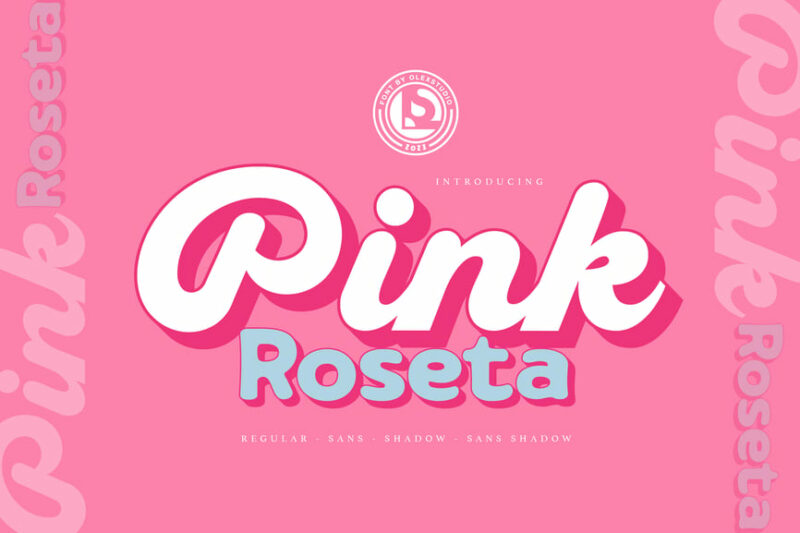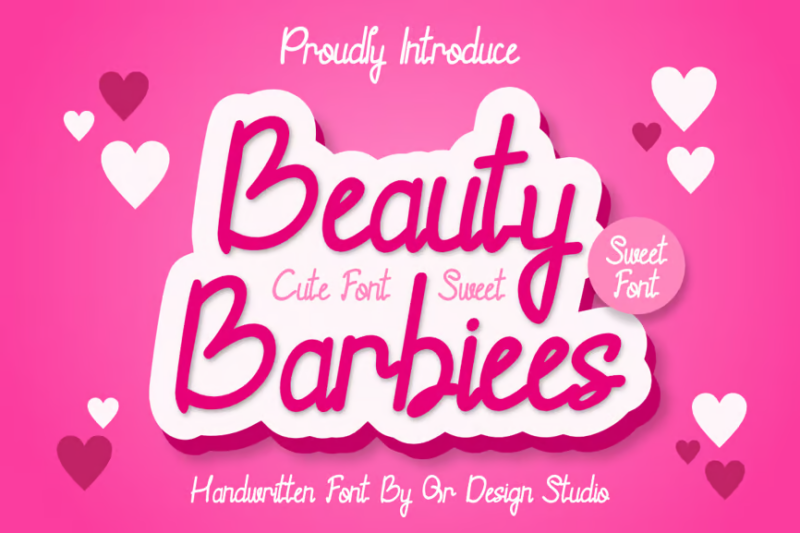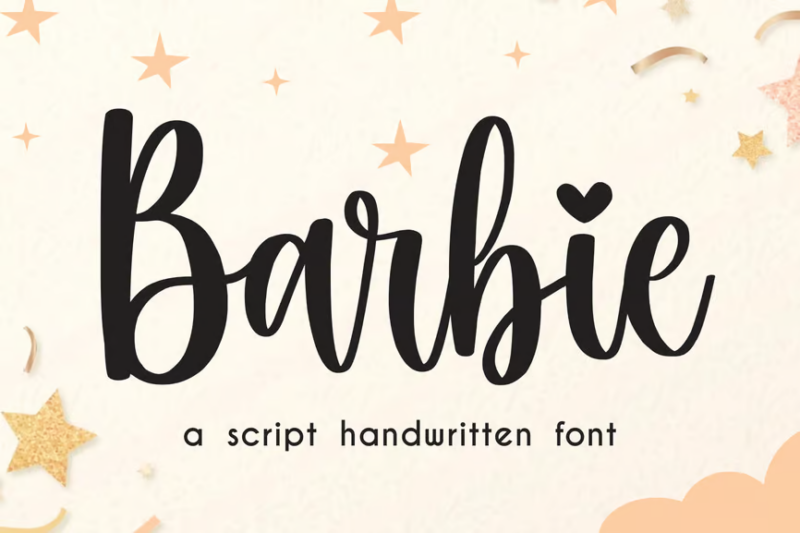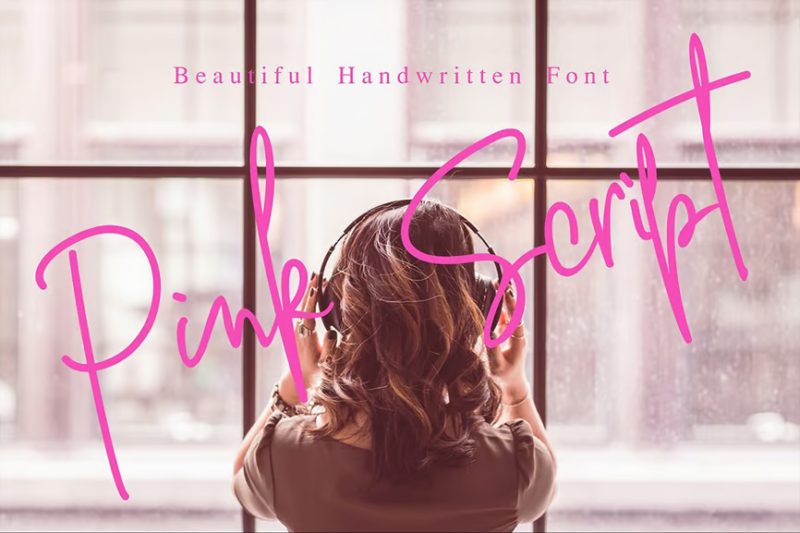
Add a touch of Barbie to your designs with our free Barbie-style font generator! Perfect for creating glamorous text for parties, crafts, and all things pink and fabulous. Our tool features the iconic curvy font style that captures Barbie’s signature blend of fashion and fun.
PINK ROSETA Typeface
PINK ROSETA is a charming script typeface that exudes femininity and elegance. Its flowing curves and delicate ligatures make it perfect for romantic designs, wedding invitations, and feminine branding projects. The typeface offers a beautiful balance between readability and decorative flair.
Beauty Barbiees
Beauty Barbiees is a playful and whimsical script font that captures the essence of beauty and love. Its bouncy baseline and curly embellishments give it a youthful, energetic feel. This font is ideal for cosmetic packaging, fashion blogs, and girly designs that require a touch of fun and glamour.
Barbie – Wedding Font
Barbie – Wedding Font is an elegant script typeface designed specifically for wedding-related materials. Its graceful curves and romantic swashes make it perfect for invitations, save-the-dates, and other nuptial stationery. The font’s refined appearance adds a touch of sophistication to any wedding-themed design.
Quenty – Elegant Script Typeface
Quenty is a beautifully crafted elegant script typeface that combines classic calligraphy with modern flair. Its smooth flowing lines and carefully balanced letterforms make it suitable for high-end branding, luxury product packaging, and sophisticated editorial designs. The font’s versatility allows it to shine in both digital and print media.
Pink Script
Pink Script is a versatile and romantic typeface that’s perfect for Valentine’s Day designs and wedding stationery. Its fluid strokes and gentle curves evoke a sense of love and tenderness. This font is ideal for creating heartfelt greeting cards, love-themed social media posts, and romantic branding projects.
Pink Bubblegum SVG
Pink Bubblegum SVG is a fun and versatile font package that includes sans-serif, script, handwritten, and decorative styles, along with symbols. Its playful design and bubbly aesthetic make it perfect for children’s designs, candy packaging, and lighthearted branding. The SVG format allows for easy scaling and customization in various design applications.